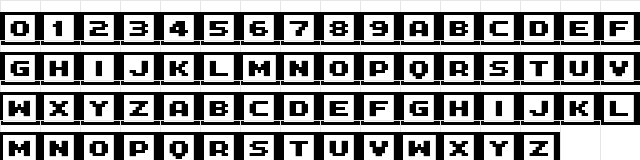
FFF Interface03b Regular
Design Context for FFF Interface03b Typeface
FFF Interface03b is a composed and adaptable typeface that performs quietly and consistently across a wide range of design contexts.